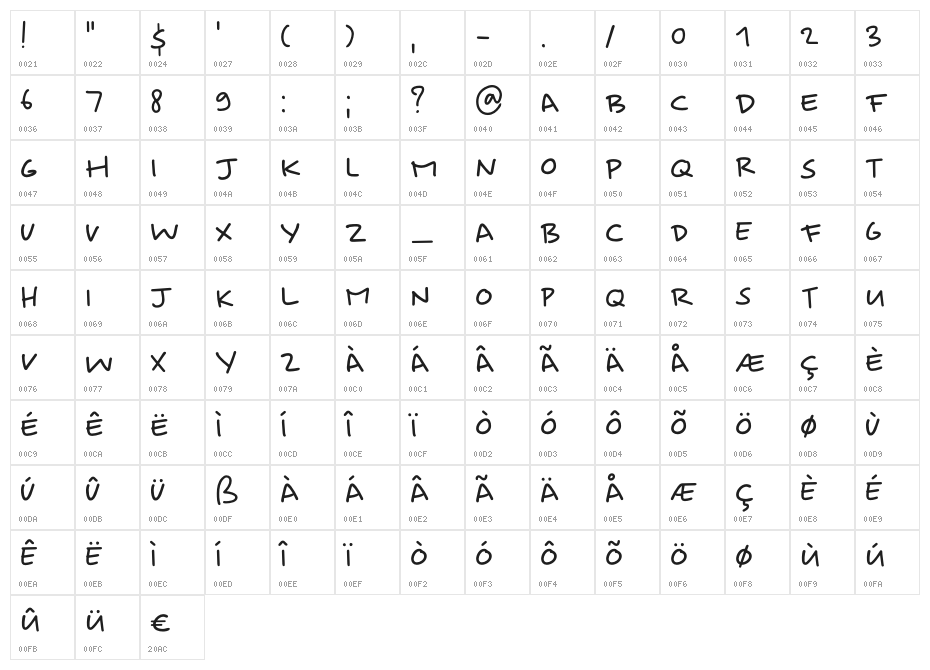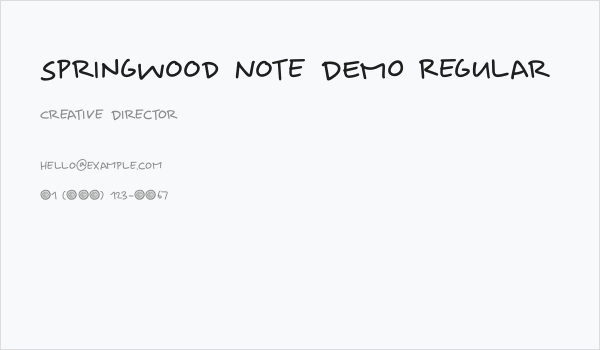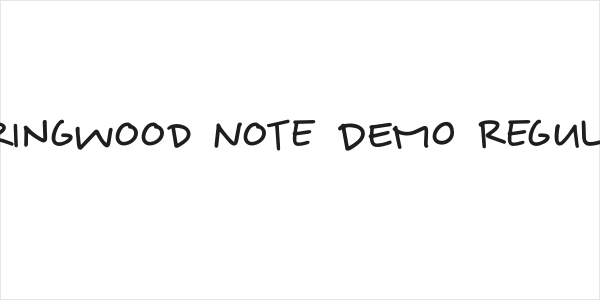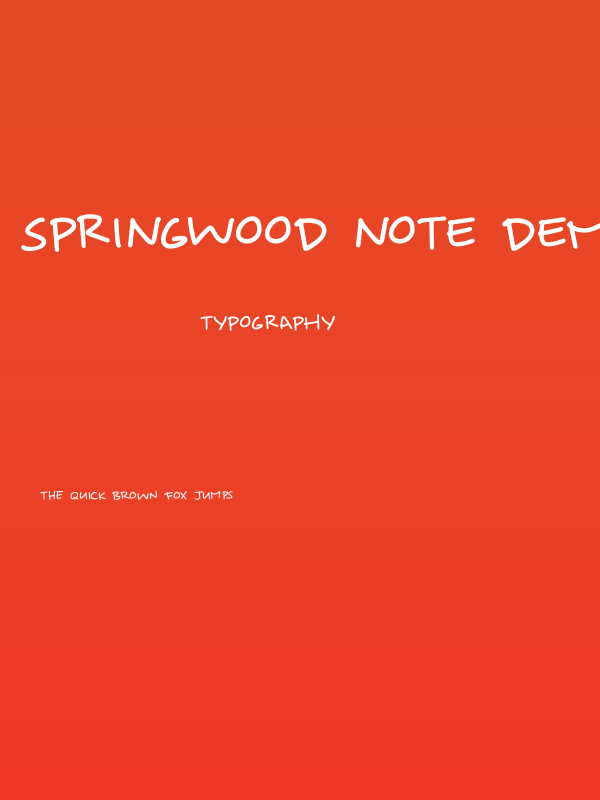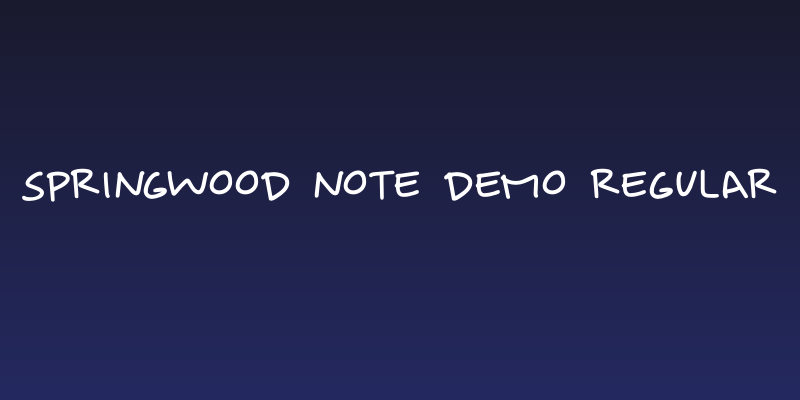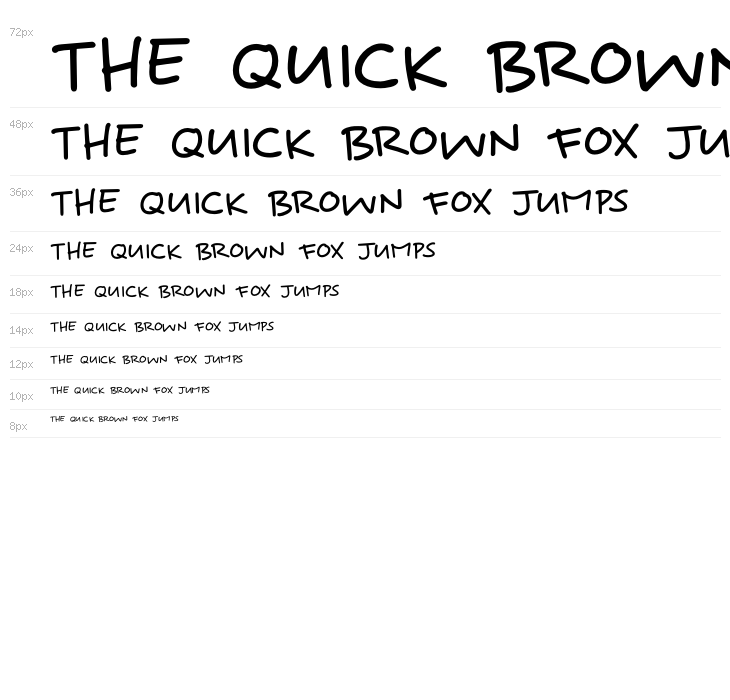
Springwood Note DEMO Regular Font
Springwood Note DEMO Regular Description
This font features a playful and casual handwritten style, characterized by its rounded and slightly irregular letterforms. The strokes are consistent in width, giving it a uniform appearance, yet the slight tilt and varied baseline add a dynamic and informal touch. The uppercase and lowercase letters are well-balanced, maintaining readability while conveying a sense of spontaneity. The numbers and special characters follow the same playful aesthetic, with unique circular patterns within some characters, adding a decorative element. This font is ideal for projects that require a personal, friendly, and approachable feel.
Overall StyleCasual, Playful
Use CaseLogos, Headlines, Informal Text
Proposed ProjectsGreat for greeting cards, children's books, playful branding, and informal invitations.